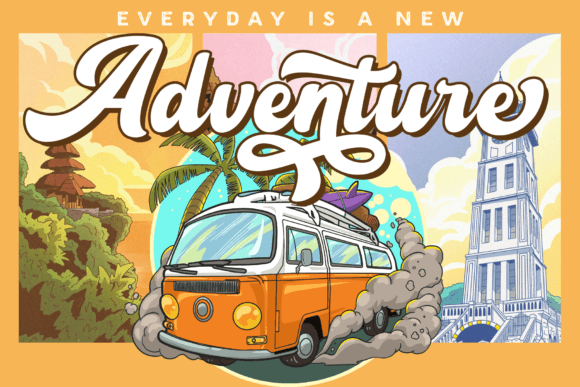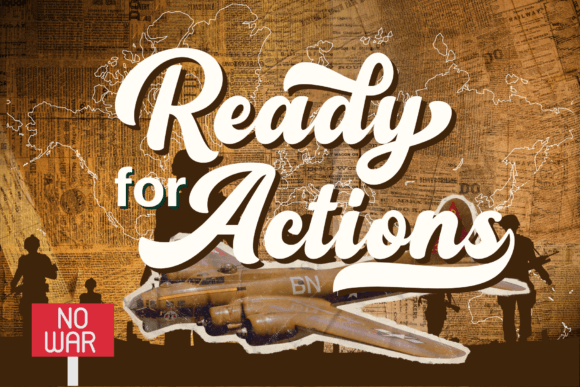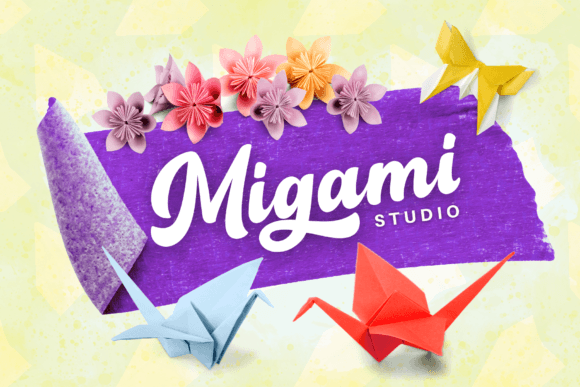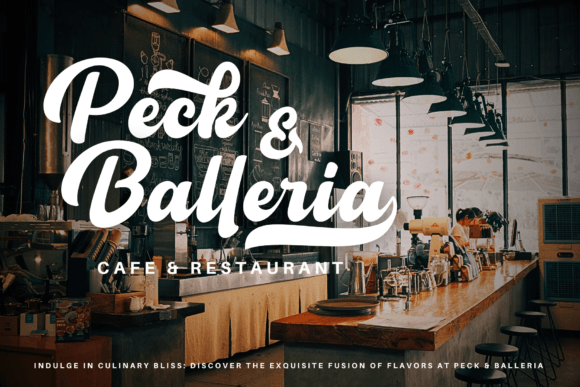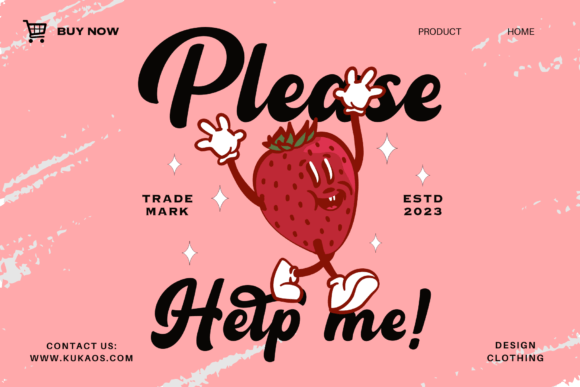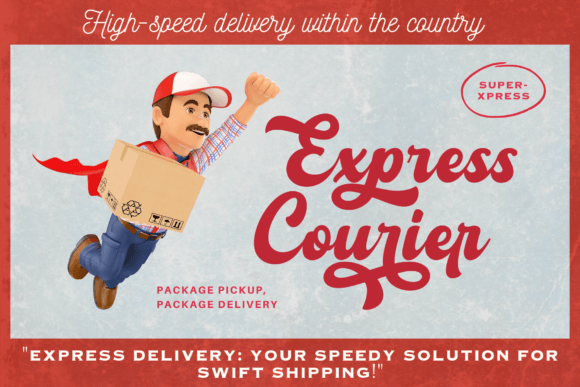
Introduction to Restand Font
You’ve spent hours staring at your blank canvas, trying to conjure up the perfect design for your latest creative project. The words ‘bold’ and ‘eye-catching’ are etched in your mind, but nothing seems to capture the essence of what you want to convey. That’s when you stumble upon the perfect design resource – the Restand Font. With its captivating retro bold script style, it’s the perfect addition to make your design truly stand out.
The Restand Font is more than just a stylish font; it’s a statement piece that adds a touch of nostalgia and high-quality aesthetics to your designs. Whether you’re working on a logo, poster, or branding project, this font is sure to make a bold statement. And the best part? It’s available for free download, making it an accessible design resource for designers of all levels.
Key Features of Restand Font
- High-quality design resource suitable for creative projects, offering a unique and stylish look.
- Transparent background, making it easy to overlay on any image or background without any visual clutter.
- Designed with a modern aesthetic, featuring clean lines and elegant typography, perfect for use in logos, headings, and body text.
- Supports resolutions up to 300 DPI, ensuring crisp and clear display on various devices and mediums.
- Includes a comprehensive character set, covering a wide range of languages and characters, making it a valuable resource for global design projects.
Honest Review: Restand Font
As a designer, I’m always on the lookout for high-quality design resources to elevate my creative projects. Recently, I stumbled upon the Restand Font, and I must say it’s a gem.
What works well is the elegant and modern design of the font, making it perfect for a variety of creative projects. The font is also incredibly versatile and can be easily used with a transparent background, giving it a clean and minimalist look.
- ✨ Elegant and modern design that’s versatile and easy to use
However, I did notice a few limitations. The font doesn’t have a large character set, which might be a drawback for designers who need a wide range of characters. Additionally, the font is not as comprehensive as some other fonts in its class.
- ⚠️ Limited character set may not be suitable for complex designs
- ⚠️ Not as comprehensive as some other fonts in its class
Overall, I’m impressed with the Restand Font. It’s a great addition to any designer’s toolkit, and its free download makes it an excellent value. While it may have some limitations, I believe it’s a high-quality design resource that can help elevate your creative projects.
Tips for Getting the Most Out of Restand Font
Use the Restand Font in conjunction with a transparent background to create a unique and eye-catching design. Experiment with different font sizes, colors, and styles to find the perfect combination for your creative project.
The Restand Font is ideal for use in graphic design, digital art, and creative projects. It’s a great resource for designers, artists, and writers looking for a high-quality font to enhance their work.